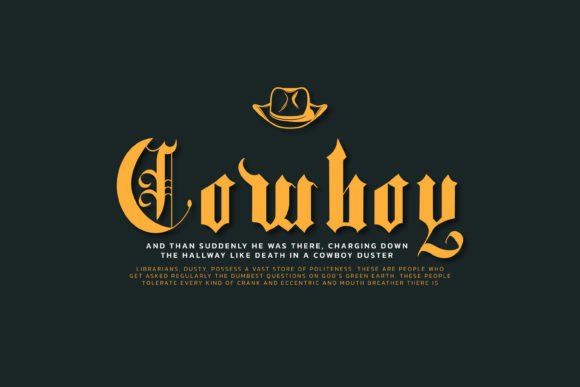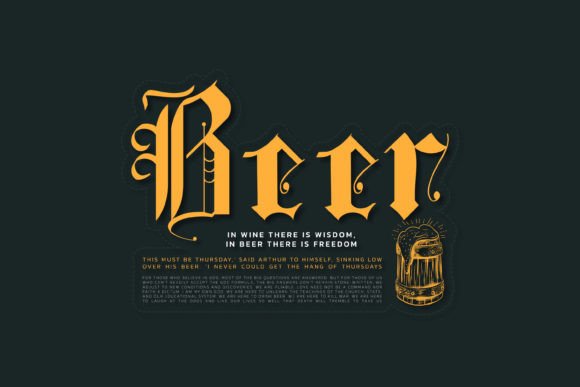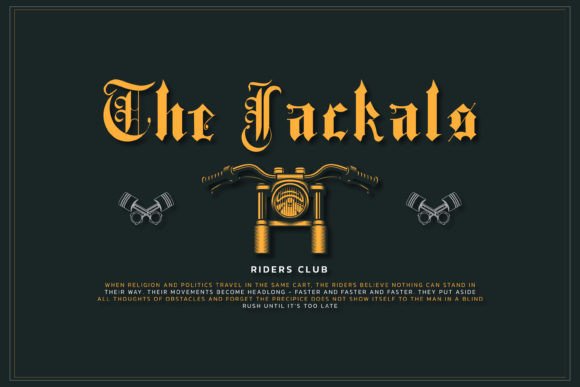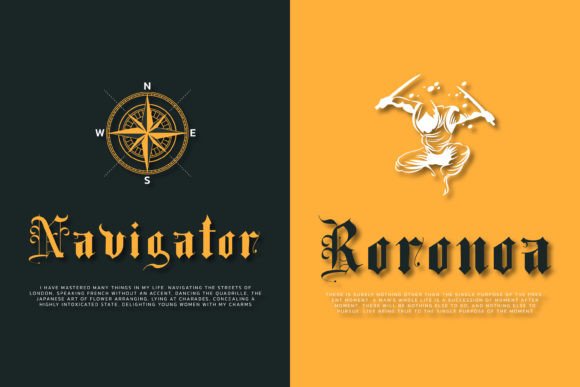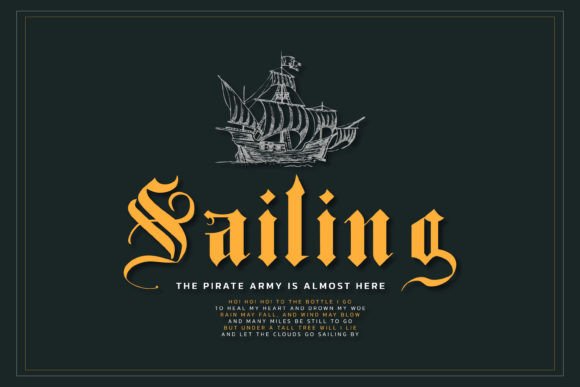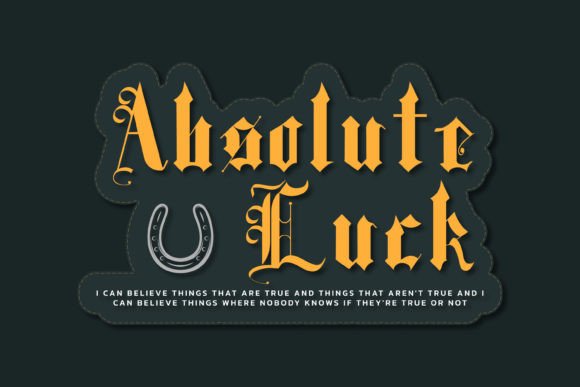
The Quest for the Perfect Font: How Arsenio Stole the Show
I’ll never forget the project that led me to discover Arsenio, a splendid blackletter display font that has since become a staple in my design toolkit. I was working on a branding project for a luxury goods company, and my client requested a bold, eye-catching font that would convey sophistication and elegance. I scoured the internet, tried out dozens of fonts, but nothing seemed quite right. That was until I stumbled upon Arsenio.
Its Gothic-inspired characters immediately caught my attention, and I knew I had found the perfect fit. The font’s unique blend of boldness and refinement made it an instant winner in my book. In this article, I’ll share my experience with Arsenio, including what I love about it, some quirks to watch out for, and practical tips on how to use it on various design platforms.
What I Love About Arsenio ✨
- ✅ Sophisticated and elegant design: Arsenio’s Gothic-inspired characters give it a refined, high-end feel that’s perfect for luxury brands, high-end products, or creative projects that require a touch of sophistication.
- ✅ Bold and daring typography: This font is not for the faint of heart! Arsenio makes a statement, and its bold design ensures that your text will stand out in any design.
- ✅ Versatile and adaptable: Whether you’re designing a logo, a poster, or a business card, Arsenio can handle it all. Its versatility makes it an excellent addition to any designer’s font library.
While Arsenio is an excellent font, it’s not without its limitations. For example:
- ⚠️ Legibility at small sizes: Like many blackletter fonts, Arsenio can be challenging to read at small sizes. It’s best used for headlines, titles, or short phrases rather than body text.
- ⚠️ Limited OpenType features: While Arsenio has some excellent OpenType features, it’s not as extensive as some other fonts on the market. However, this doesn’t detract from its overall usability.
The Story Behind Arsenio
Arsenio was designed by a team of typographers who wanted to create a font that would evoke the grandeur of Gothic architecture. Inspired by ancient manuscripts and illuminated texts, they crafted a font that’s both bold and refined. Whether you’re a designer, crafter, or creative hobbyist, Arsenio is sure to become a favorite in your font library.
Q: Is Arsenio suitable for body text?
A: While Arsenio is an excellent font, it’s best used for headlines, titles, or short phrases. Its legibility at small sizes can be limited, making it less suitable for body text.
Q: Does Arsenio have any OpenType features?
A: Yes, Arsenio has some excellent OpenType features, including stylistic alternates and glyphs. These features allow you to customize your text and add an extra layer of creativity to your designs.